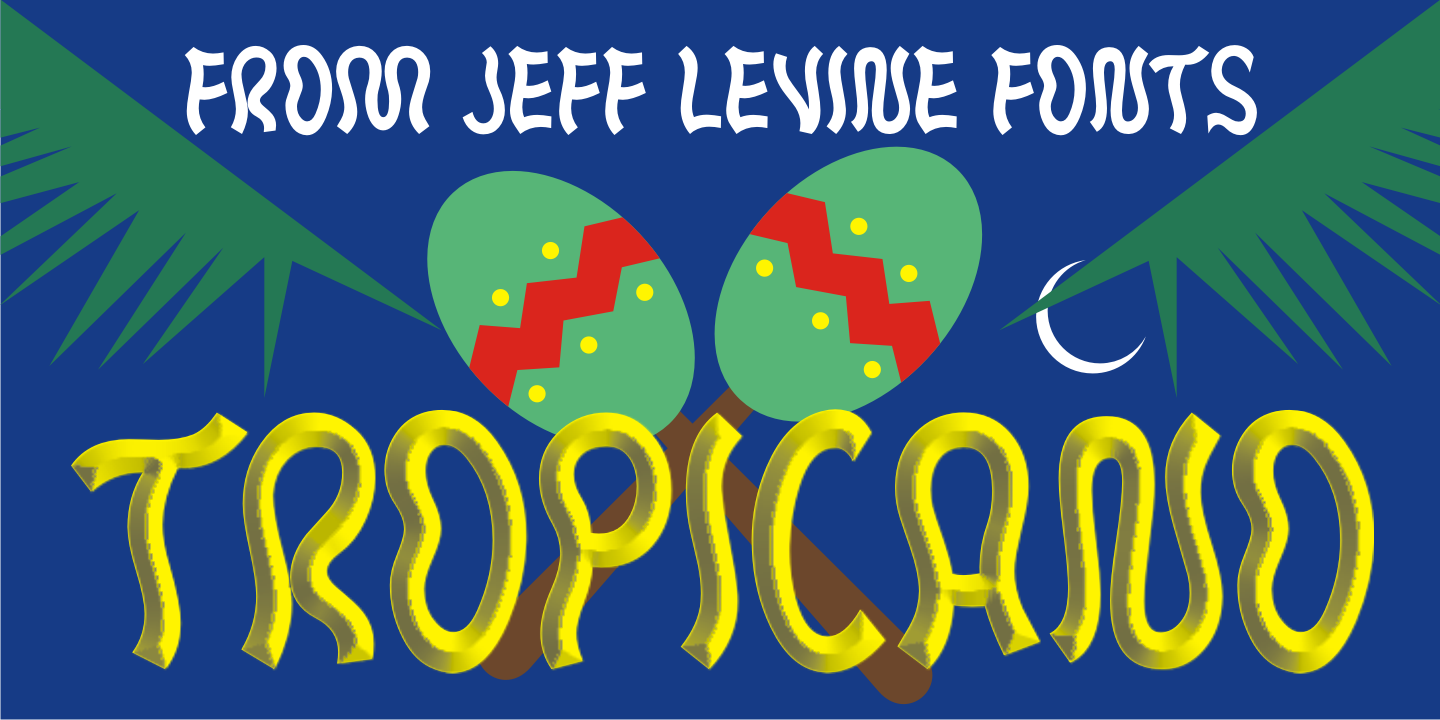
Tropicano JNL Font Free Download is a retro-inspired typeface that channels the sunny, carefree spirit of mid-century tropical design. With bold lines and vintage flair, this font is perfect for signage, travel posters, beach-themed branding, resort logos, and nostalgic packaging that evokes the golden age of vacation advertising.
Its distinctive lettering style makes Tropicano JNL a standout choice for any project that needs a splash of retro personality. Whether you’re designing a tiki bar menu or a summer event flyer, this font instantly brings warm vibes and throwback charm to your work.